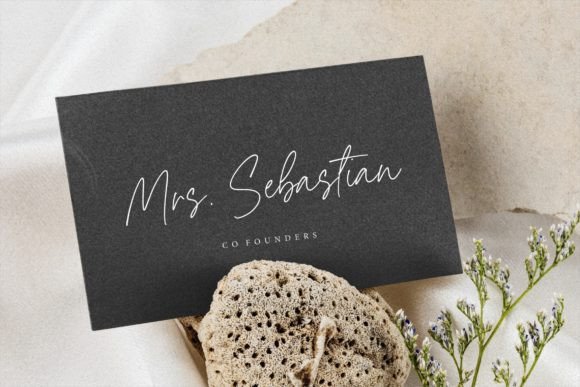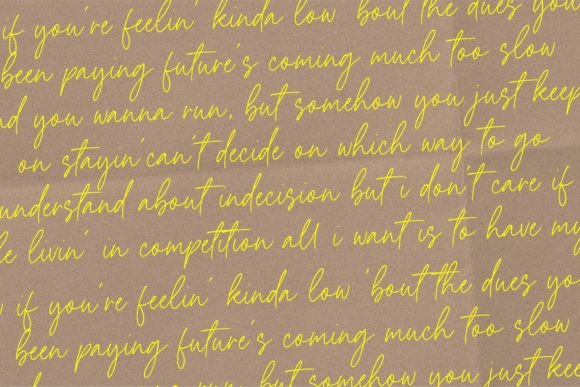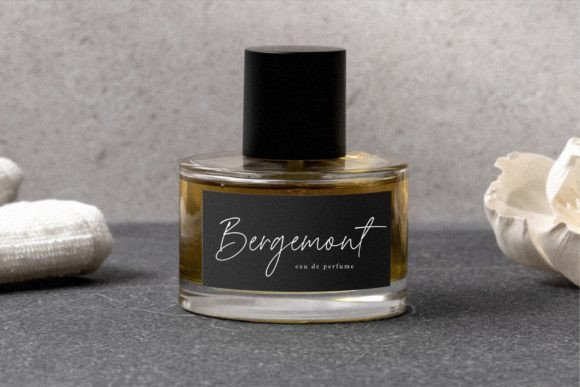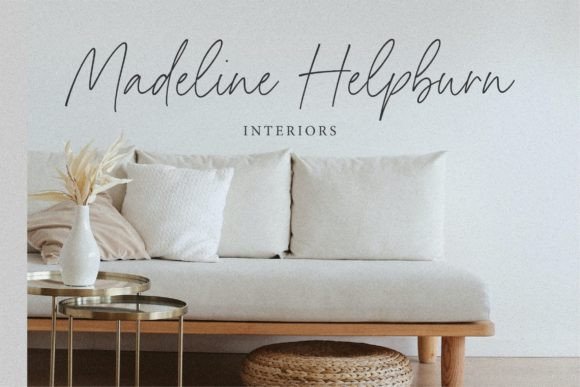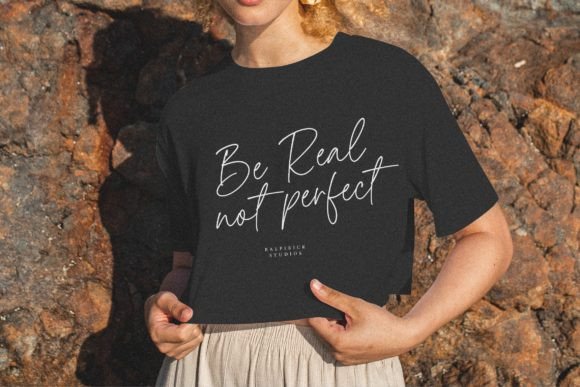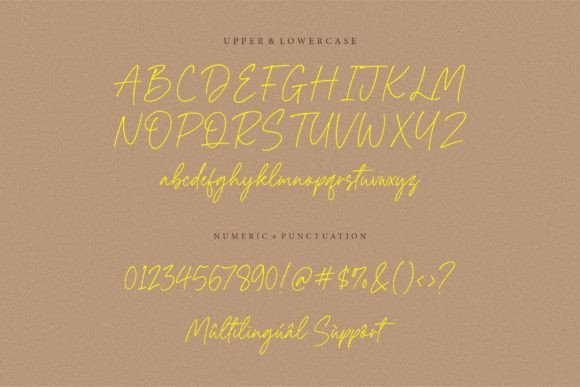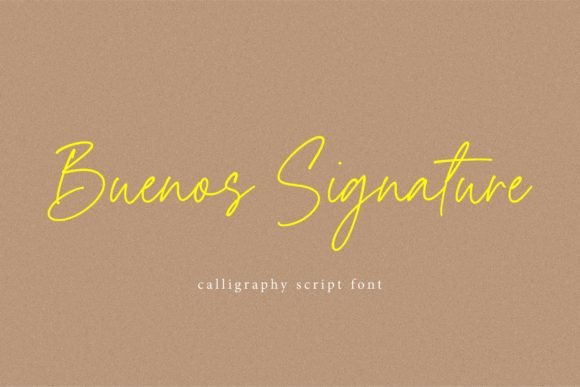
Introducing Buenos Signature Font: Elevate Your Designs with Elegance and Sophistication
In the world of design, typography plays a crucial role in conveying the tone and personality of a brand or project. A well-chosen font can make all the difference in creating a lasting impression on your audience. If you’re on the hunt for a beautiful, modern script font that’s both clean and elegant, look no further than Buenos Signature. This stunning monoline script font is perfect for a range of design projects, from logos and branding to invitations, packaging, and more.
The Beauty of Buenos Signature
Buenos Signature boasts smooth, effortless lines that exude understated sophistication. Its refined aesthetic is both modern and timeless, making it an excellent choice for designers and crafters who want to create a lasting impact. The font’s precision-crafted lines and curves create a sense of fluidity, making it perfect for designs that require a touch of elegance.
One of the standout features of Buenos Signature is its incredible versatility. This font can be used for a wide range of design projects, including:
• Logos and branding: Create a professional and memorable brand identity with Buenos Signature’s elegant script.
• Invitations and events: Add a touch of sophistication to your wedding invitations, party invites, or corporate events.
• Packaging: Elevate your product packaging with a font that’s both modern and refined.
• Stationery and paper goods: Create beautiful stationery, greeting cards, and paper crafts with Buenos Signature.
Why Choose Buenos Signature?
So, what sets Buenos Signature apart from other script fonts on the market? Here are just a few reasons why designers and crafters love this beautiful font:
• Clean and elegant design: Buenos Signature’s monoline script is both modern and timeless, making it perfect for designs that require a touch of sophistication.
• Highly versatile: Use Buenos Signature for a wide range of design projects, from logos and branding to invitations and packaging.
• Easy to read: Despite its elegant design, Buenos Signature is incredibly easy to read, making it perfect for body text and headlines.
• Precision-crafted: Every line and curve in Buenos Signature has been carefully crafted to create a sense of fluidity and elegance.
Tips for Using Buenos Signature
To get the most out of Buenos Signature, here are a few tips to keep in mind:
• Pair with contrasting fonts: Combine Buenos Signature with a contrasting font to create visual interest and hierarchy in your design.
• Experiment with colors: Buenos Signature looks stunning in a range of colors, from bold and bright to soft and pastel.
• Use it sparingly: While Buenos Signature is a beautiful font, it can be overwhelming if overused. Use it sparingly to create a lasting impression.
Buenos Signature is a stunning monoline script font that’s perfect for designers and crafters who want to elevate their designs with elegance and sophistication. Its clean, effortless lines and understated sophistication make it a versatile font that can be used for a range of design projects. Whether you’re creating a logo, invitation, or packaging, Buenos Signature is sure to make a lasting impression on your audience.